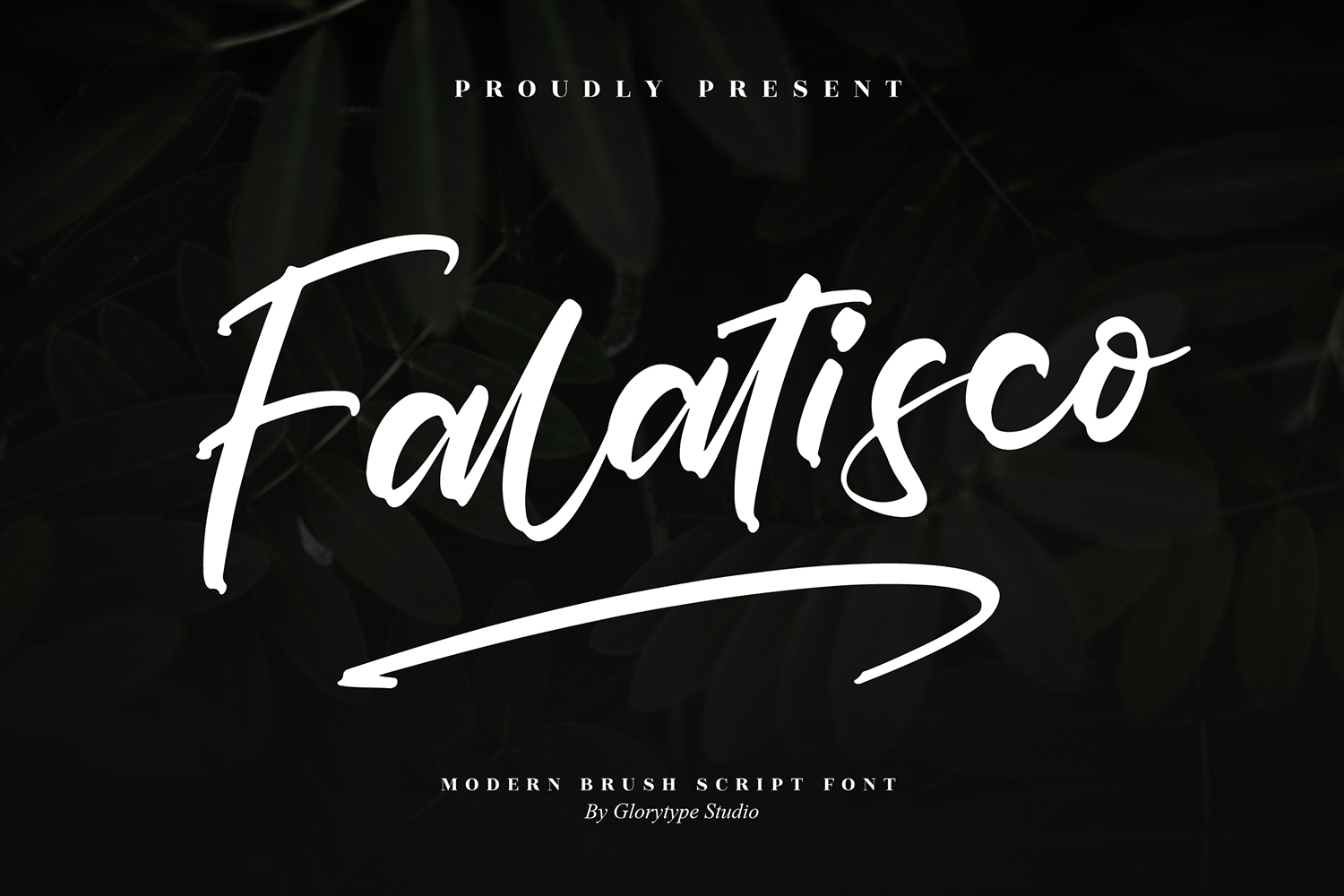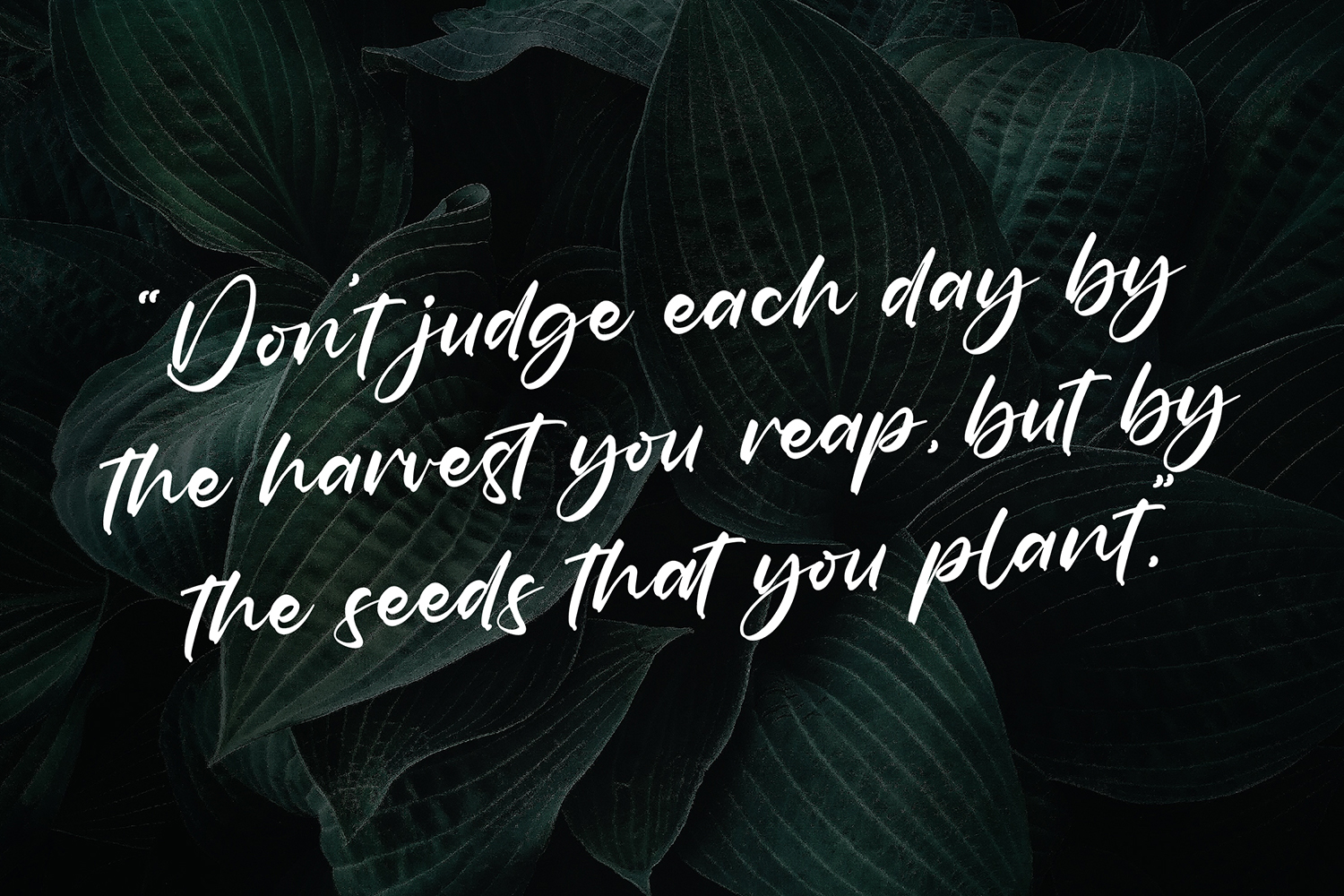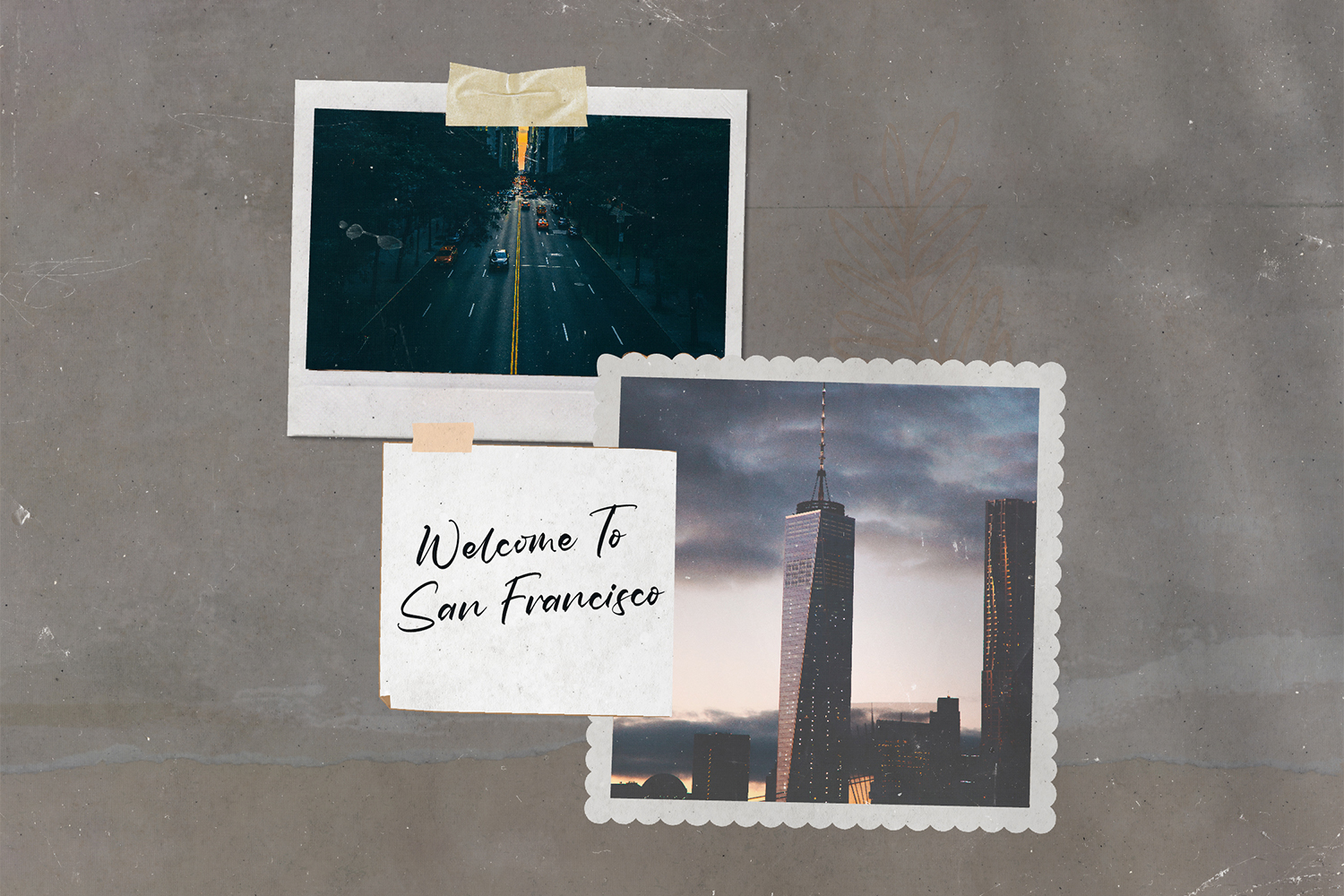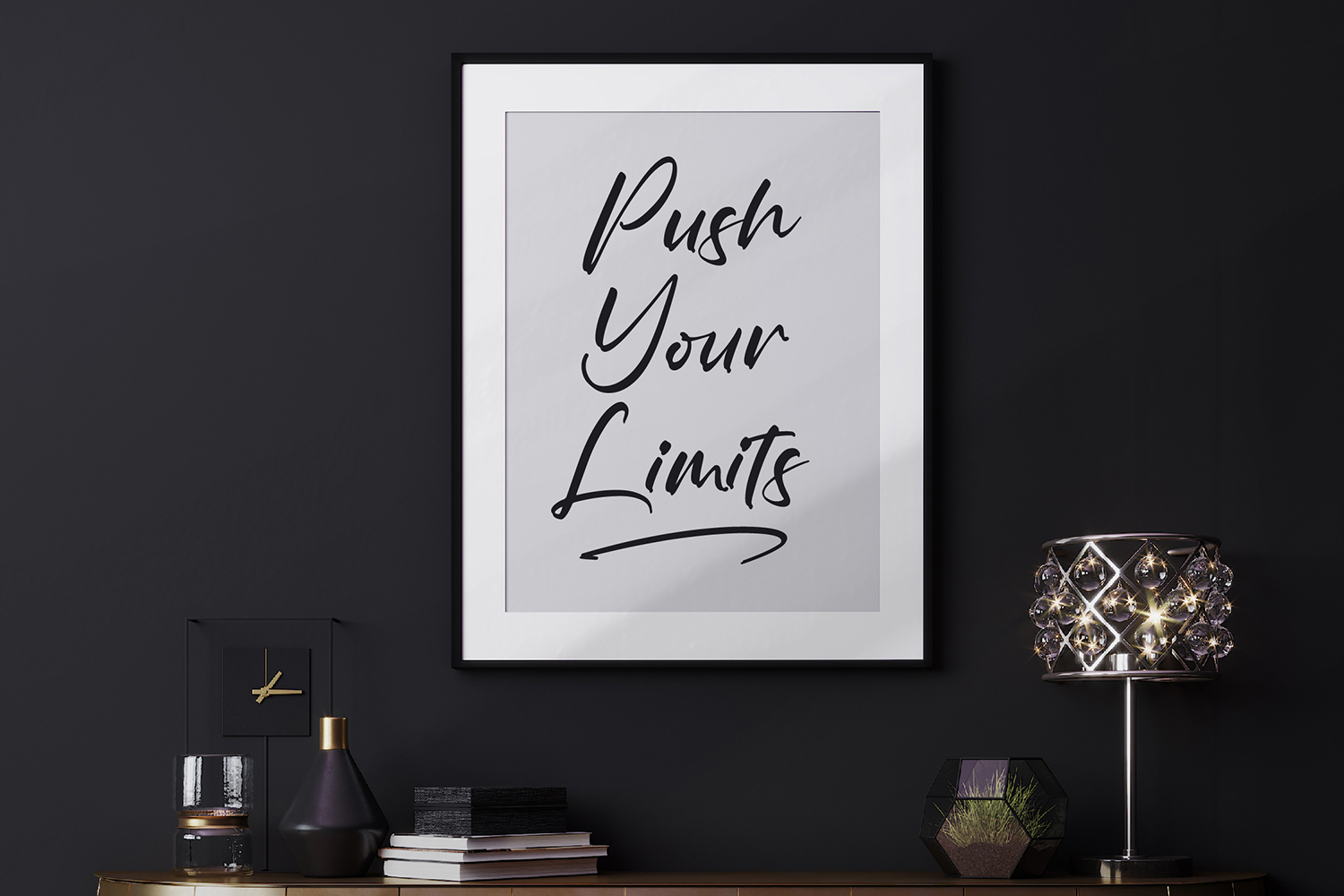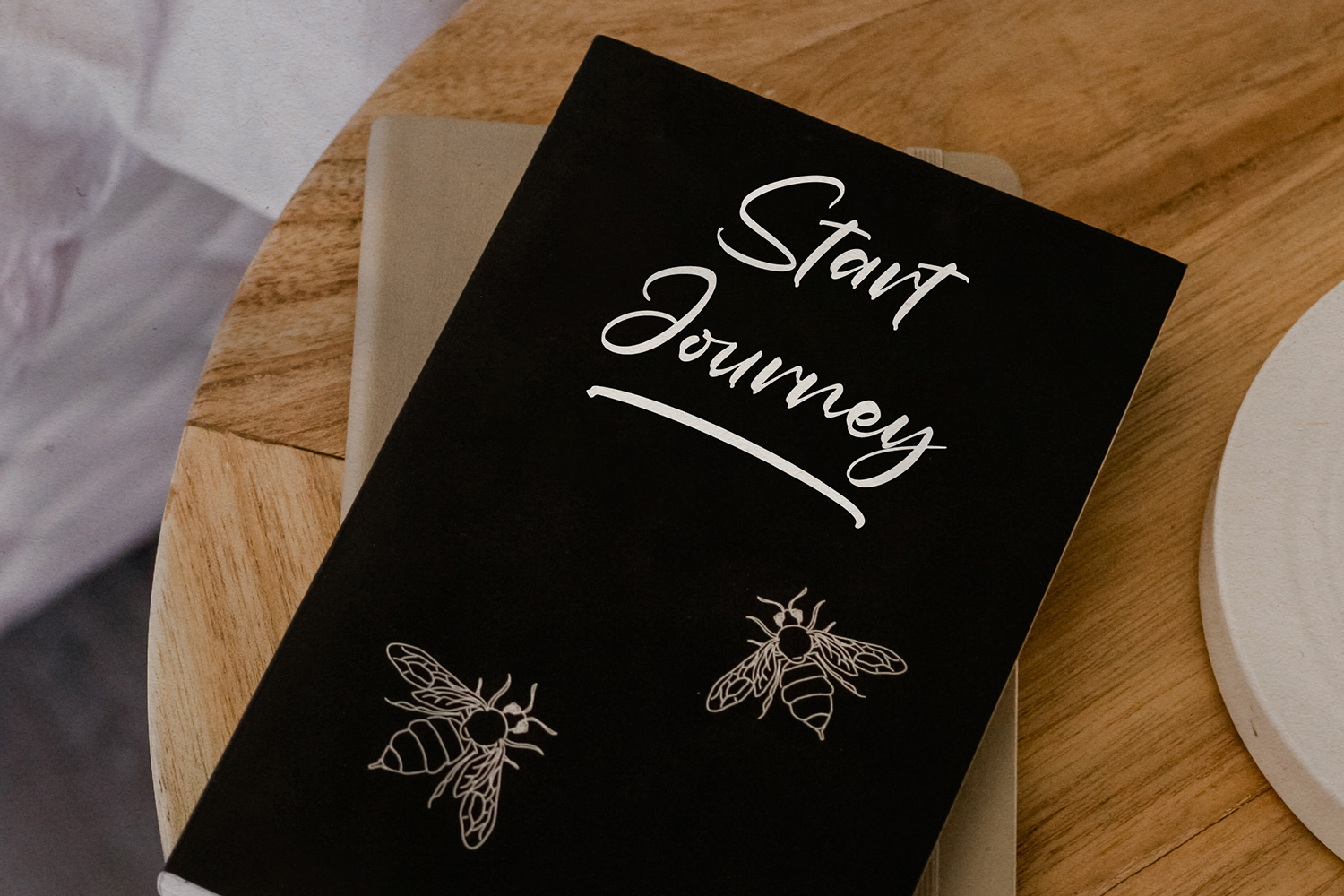
Falatisco Free Font
Falatisco Free Font is an enchanting calligraphy typeface where characters gracefully sway along the baseline, infusing elegance into every curve. Elevate your design projects with a touch of opulence as this font casts a spell of luxury, breathing life into your creative visions. This free typeface was designed by a talented Glorytype Studio. If you like it don’t forget to check out the full version.